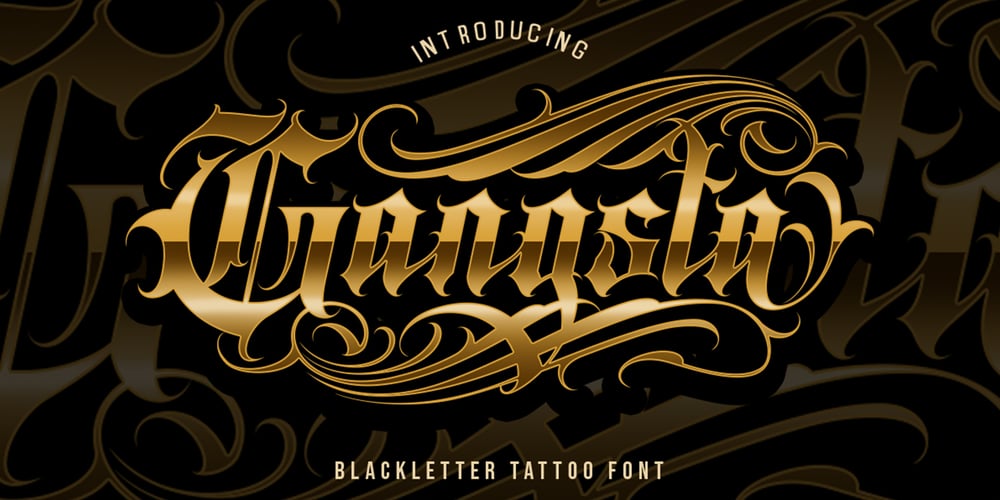
Gangsta Font Family was designed by Satriyo Hutomo and published by Muntab Art. Gangsta contains 3 styles and family package options. Introducing of our new product the name Gangsta Typeface | Blackletter Tattoo Fonts. Blackletter with Tattoo style + ornaments perfect for tattoo design, logo studio tattoo, shirt design, poster, branding, etc.Please contact us if you have any questions, we are happy to help you!Thank you!